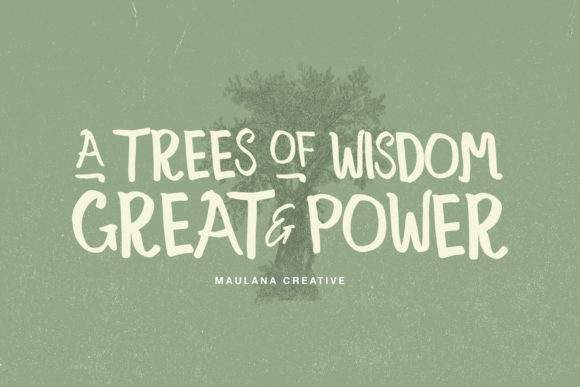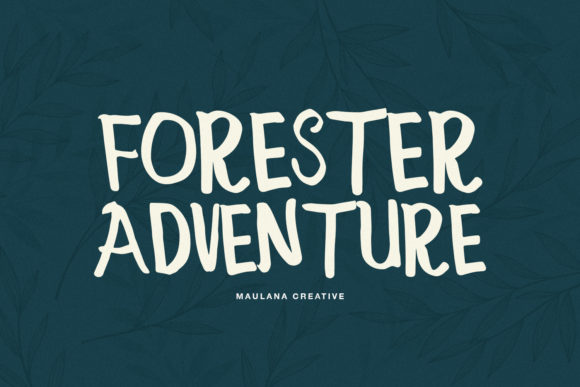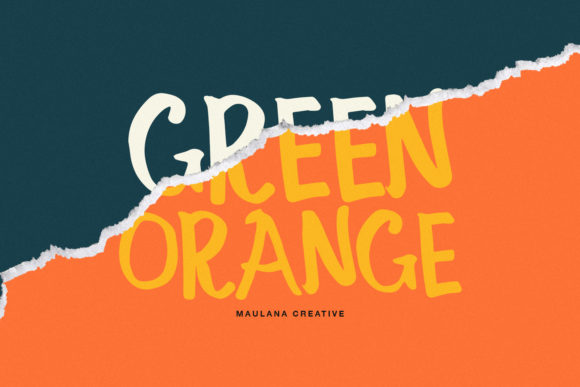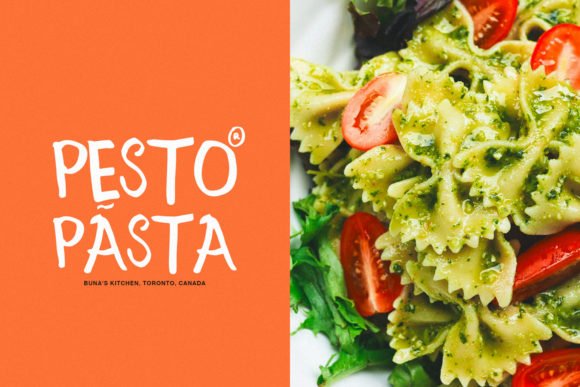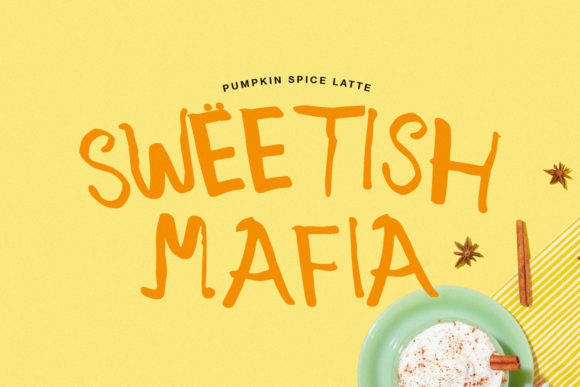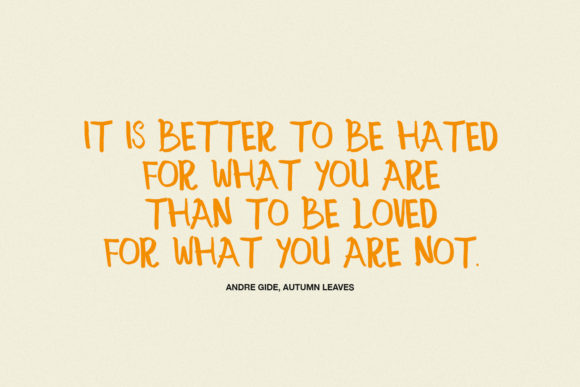
Introduction to Delique Font
Delique embodies fun, quirkiness and authenticity.
This enchanting display font will turn any creative idea into a true standout Get creative with its childlike playfulness, and use it to brighten up any kids and school project.